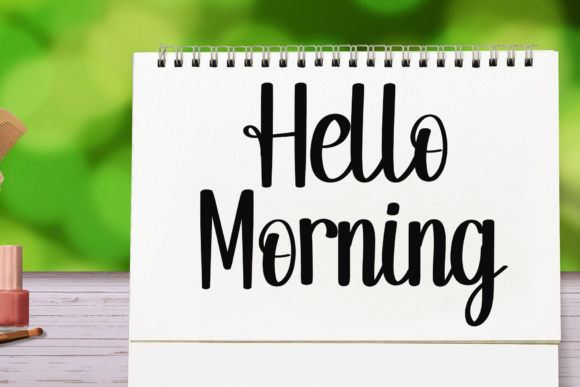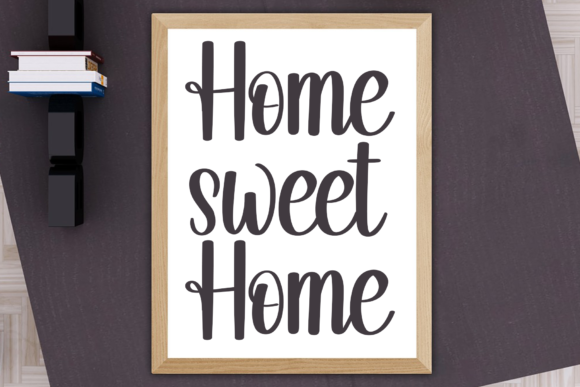
Mandala Handmade Font
db-ku.com - Script & Handwritten -- Mandala Handmade is a sweet and cursive handwritten font. This gentle font will look gorgeous on a variety of design ideas. It will add a joyful and romantic touch to each of your projects!